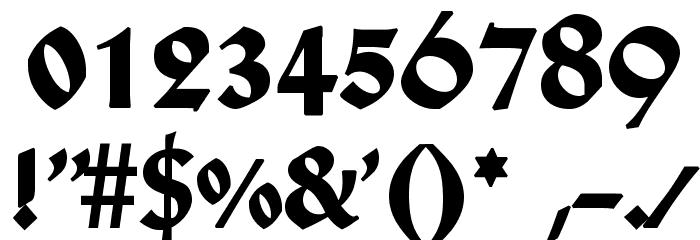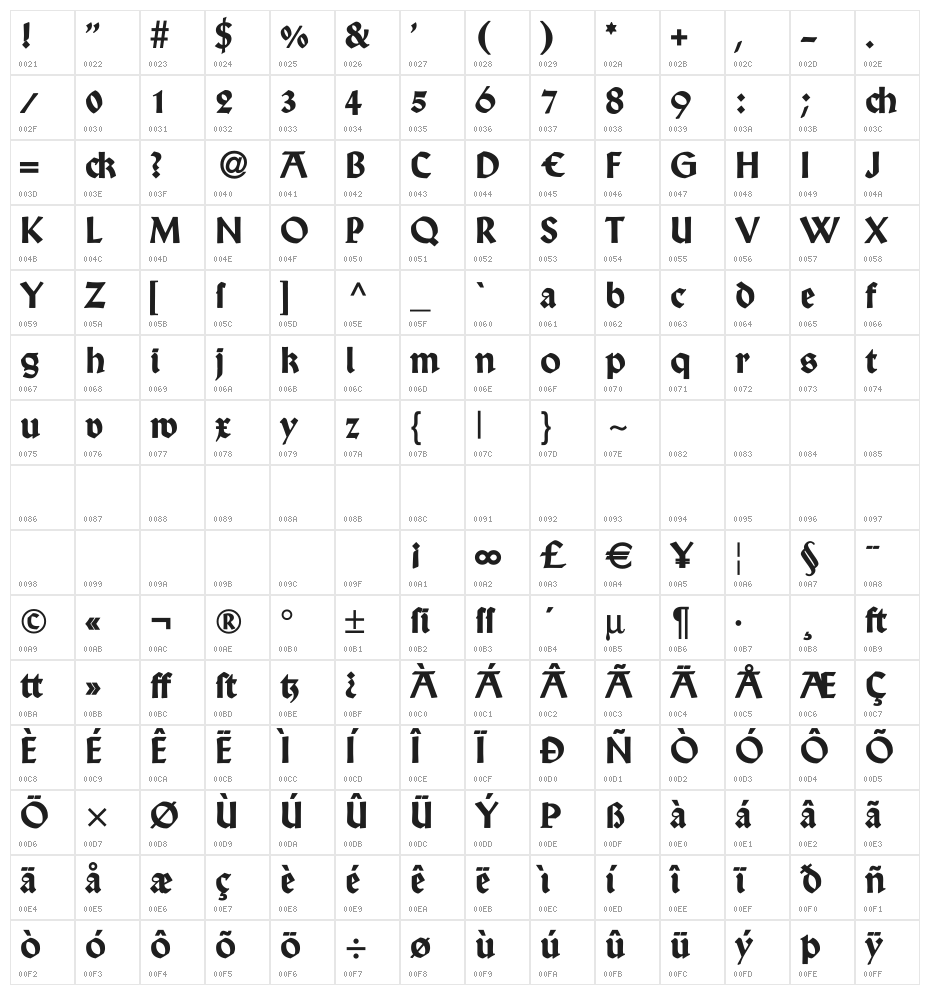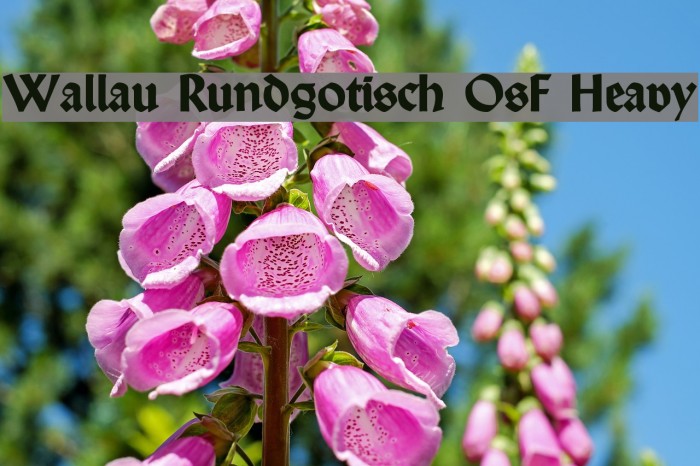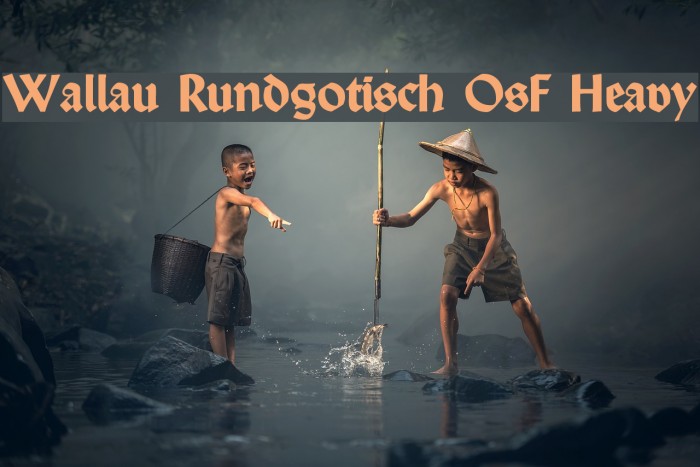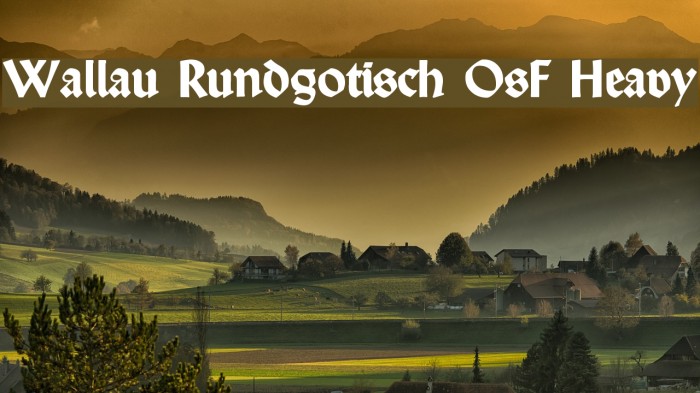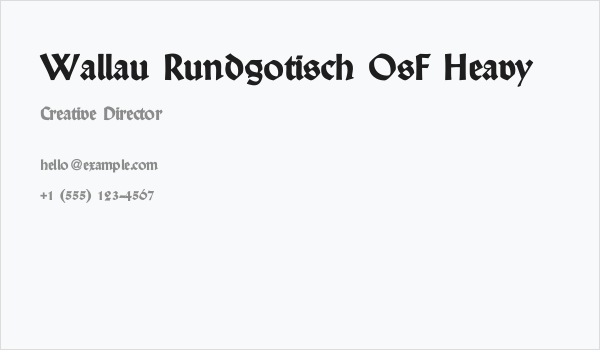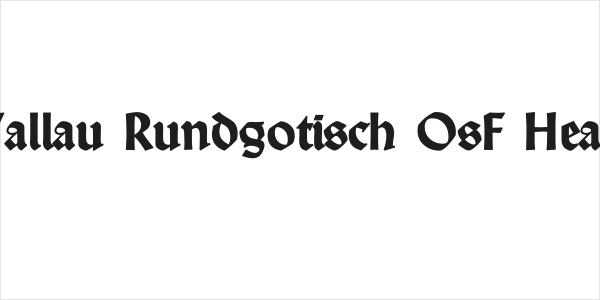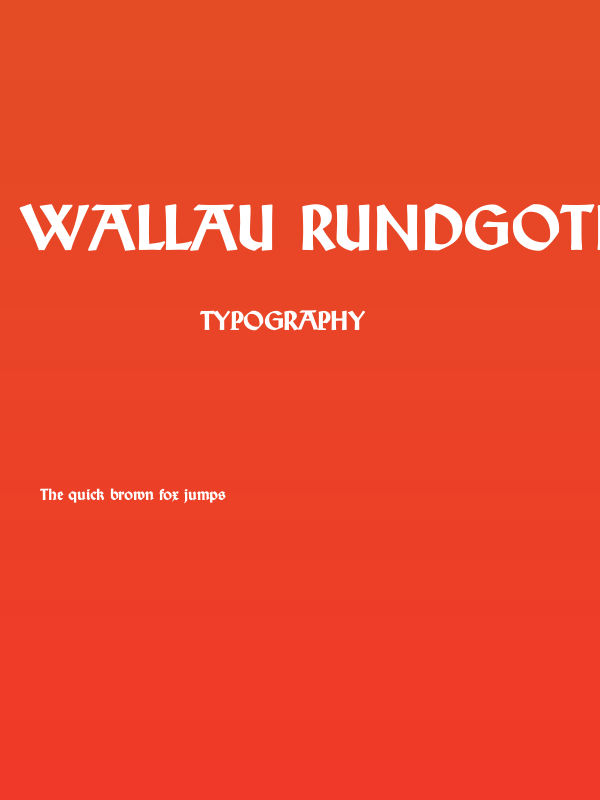
Wallau Rundgotisch OsF Heavy Font
Wallau Rundgotisch OsF Heavy Description
This font features a bold, gothic style with a strong presence and a traditional blackletter influence. The uppercase letters are characterized by sharp angles and dramatic strokes, while the lowercase letters maintain a consistent gothic flair with intricate curves and pointed edges. The numerals are equally bold, complementing the overall style with their distinct, angular forms. Special characters are designed to match the font's heavy, ornamental aesthetic, making it suitable for impactful and decorative purposes.
| Use Case | Headlines, Logos, Decorative text |
| Proposed Projects | Ideal for projects requiring a historical or medieval touch, such as book covers, posters, or branding for vintage-themed products. |